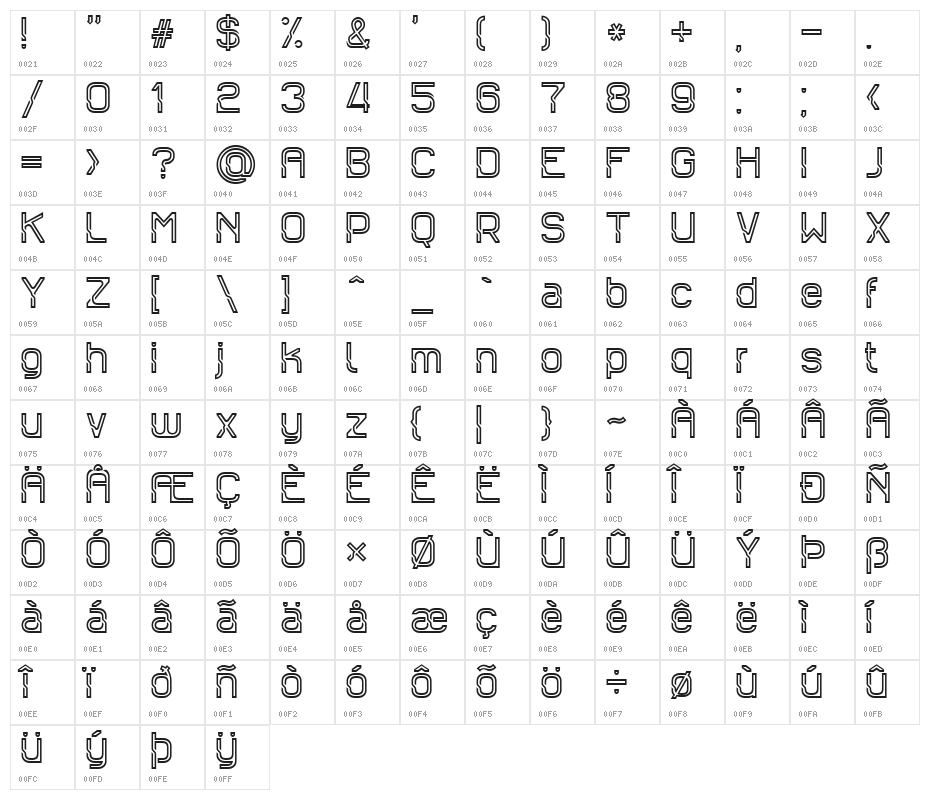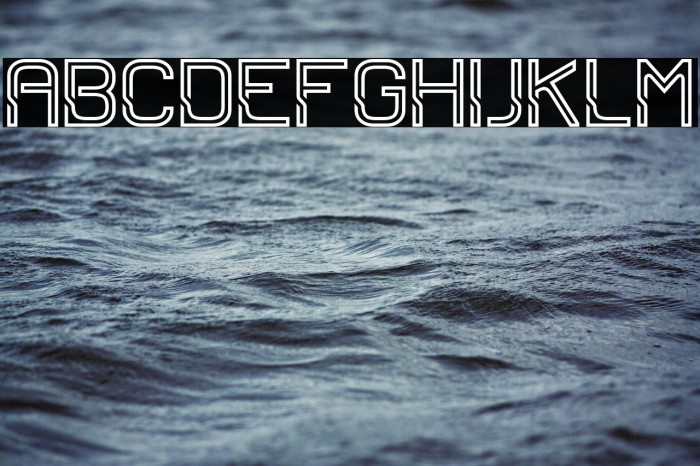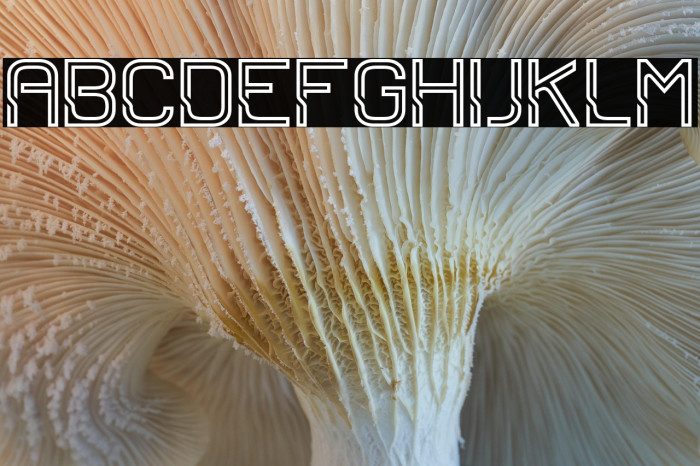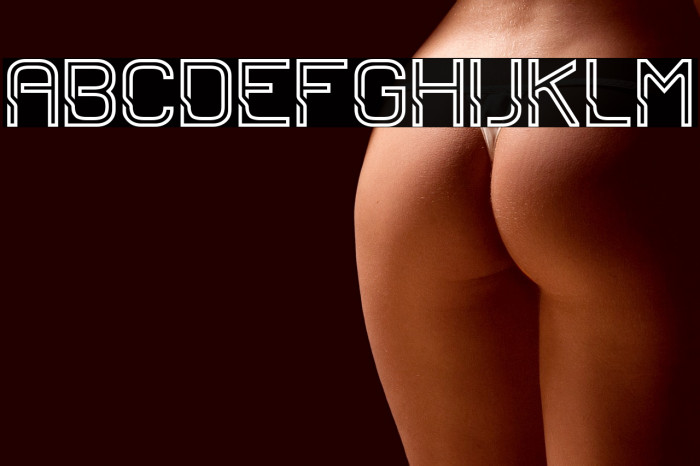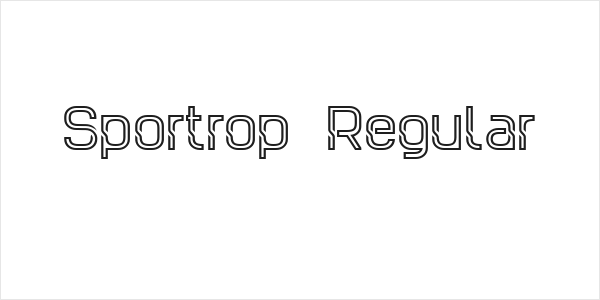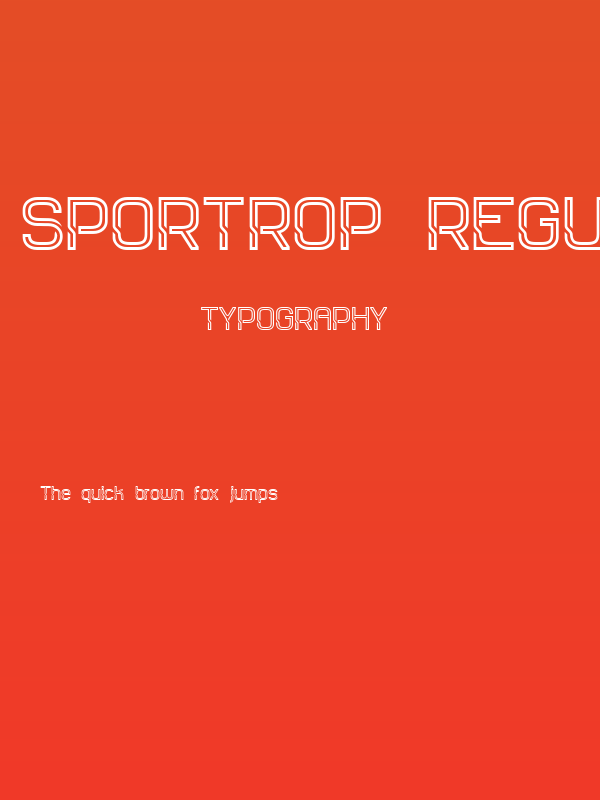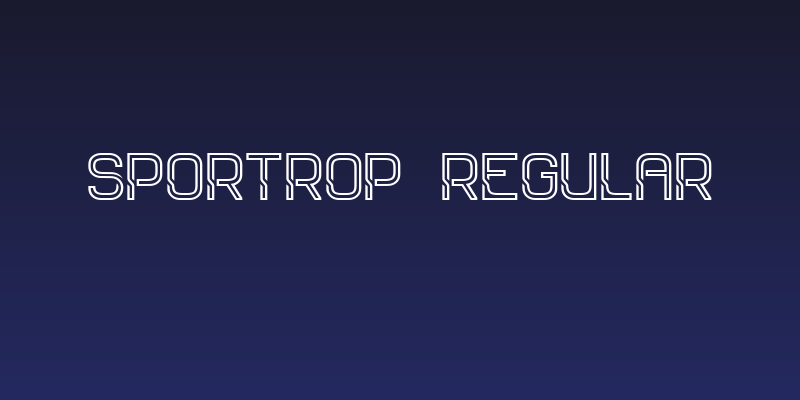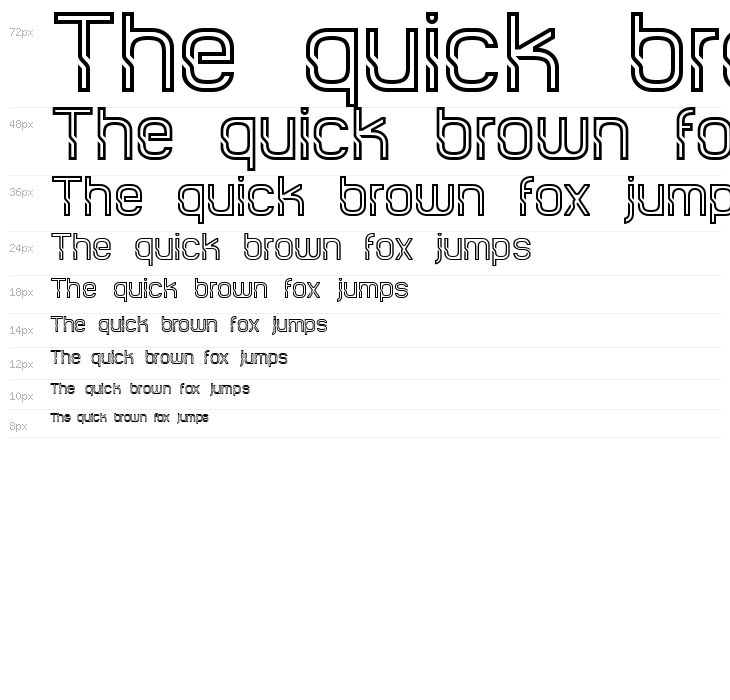
Sportrop Regular Font
Sportrop Regular Description
This font features a modern, geometric design with a distinct outline style. The characters are constructed with clean, angular lines that create a futuristic and sporty appearance. The uppercase and lowercase letters maintain a consistent height, contributing to a uniform look. The numerals and special characters are designed to match the overall aesthetic, ensuring a cohesive appearance across all text. The font's open structure and bold outlines make it highly legible, even at smaller sizes, while the unique design elements add a touch of creativity and flair.
| Proposed Projects | Ideal for sports branding, futuristic designs, posters, and digital media projects. |